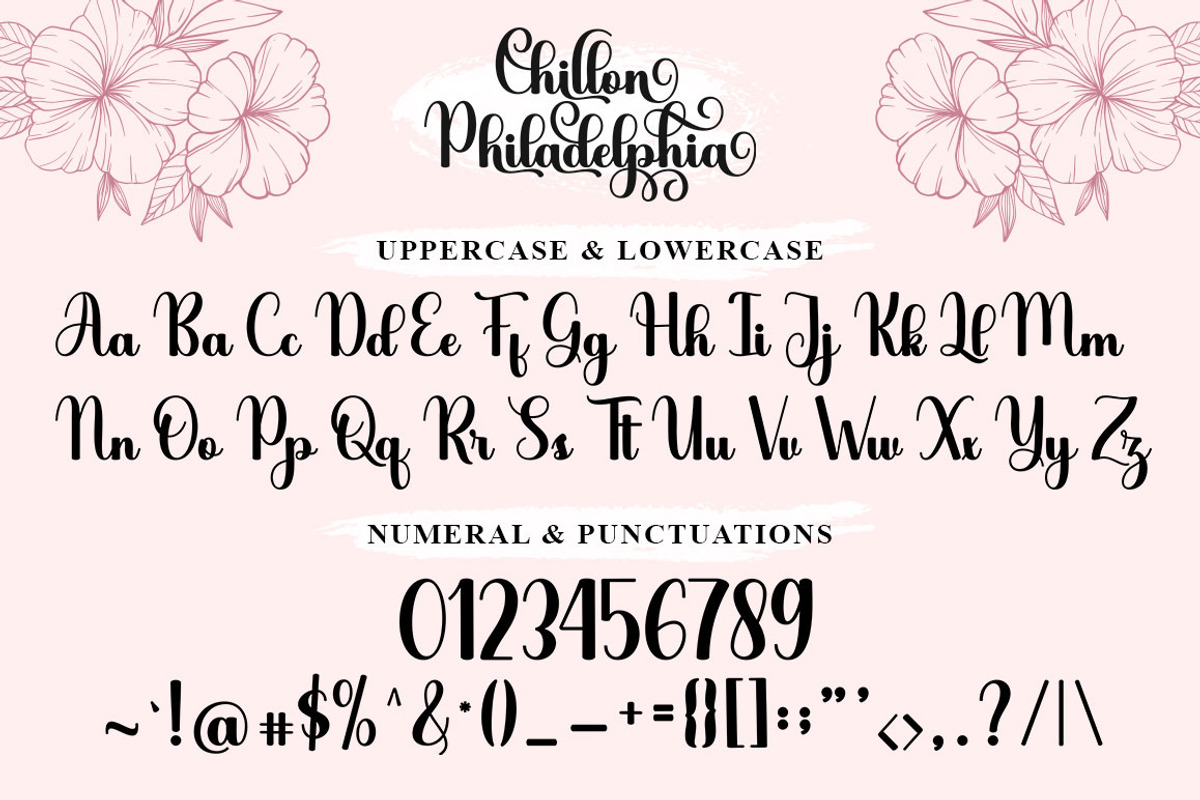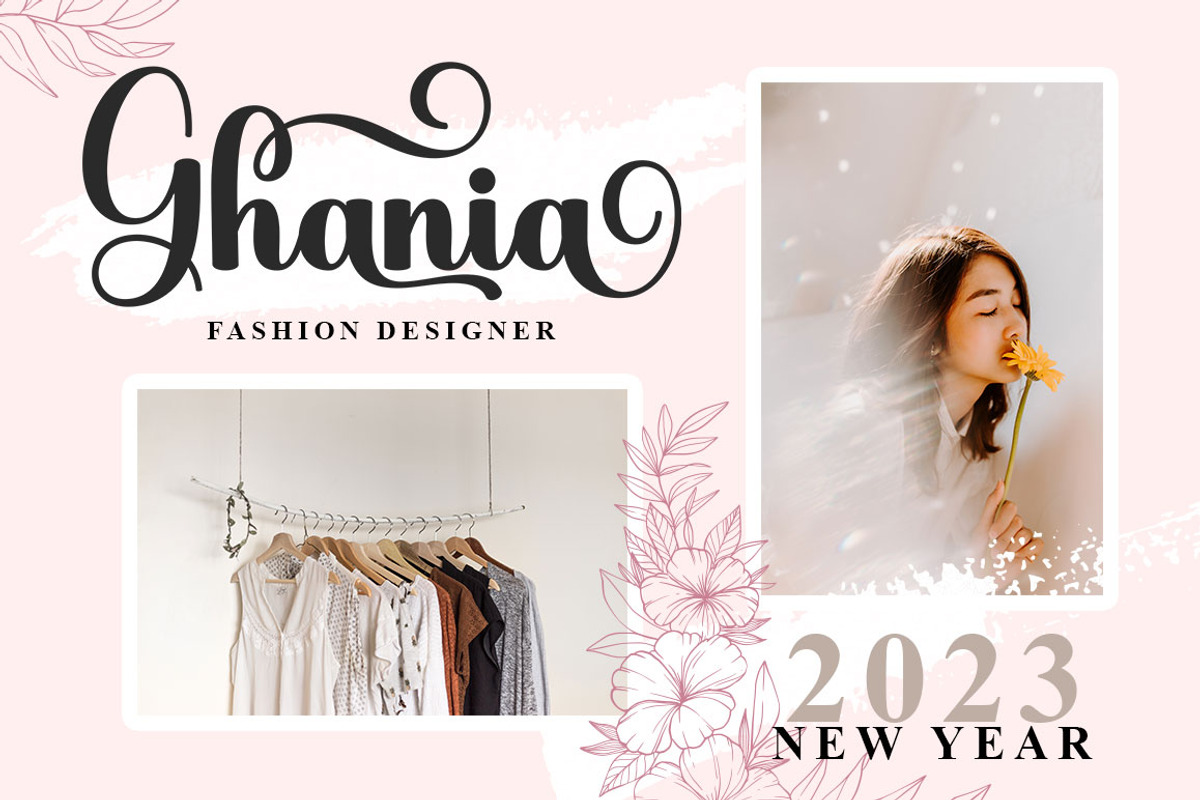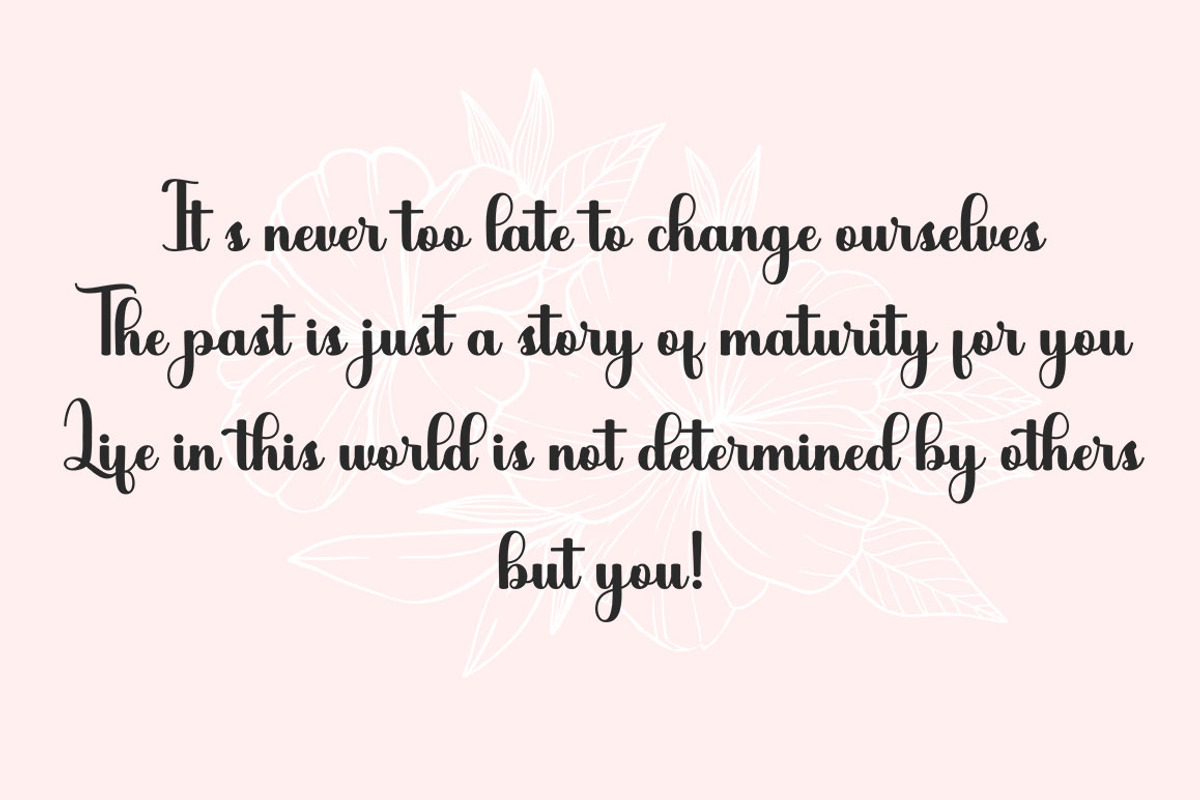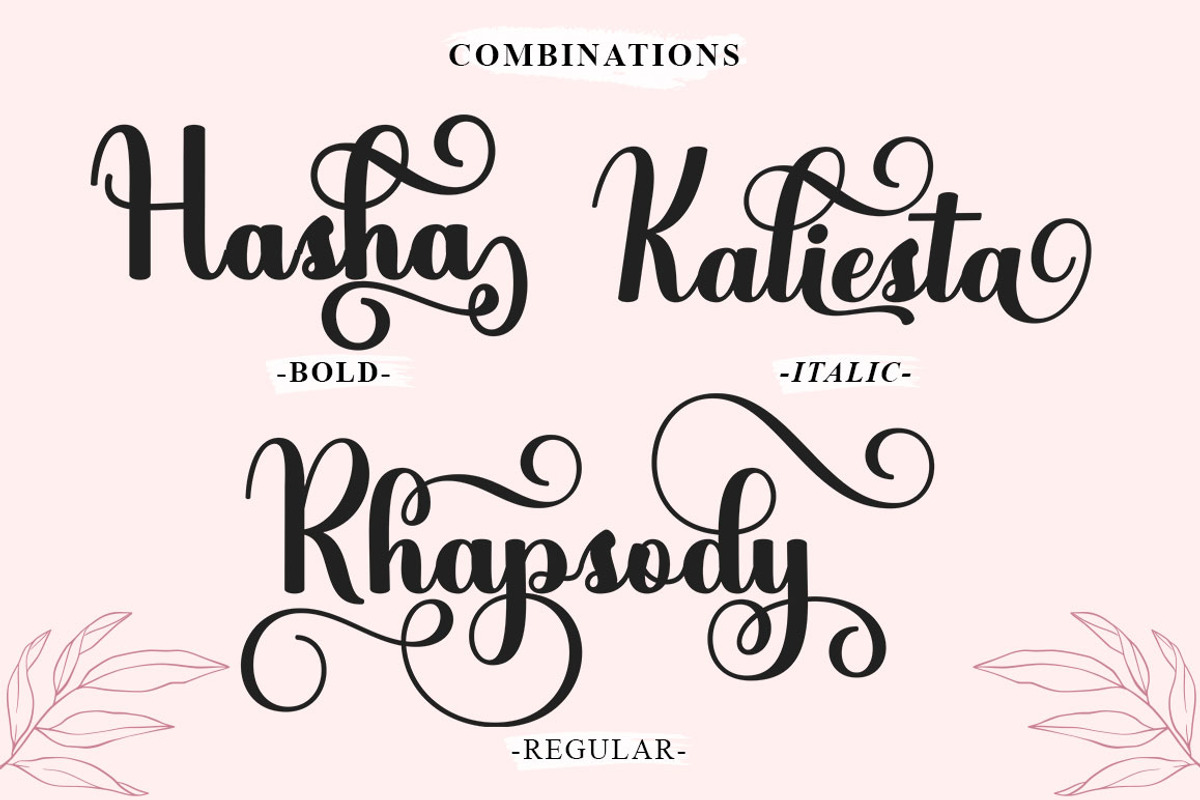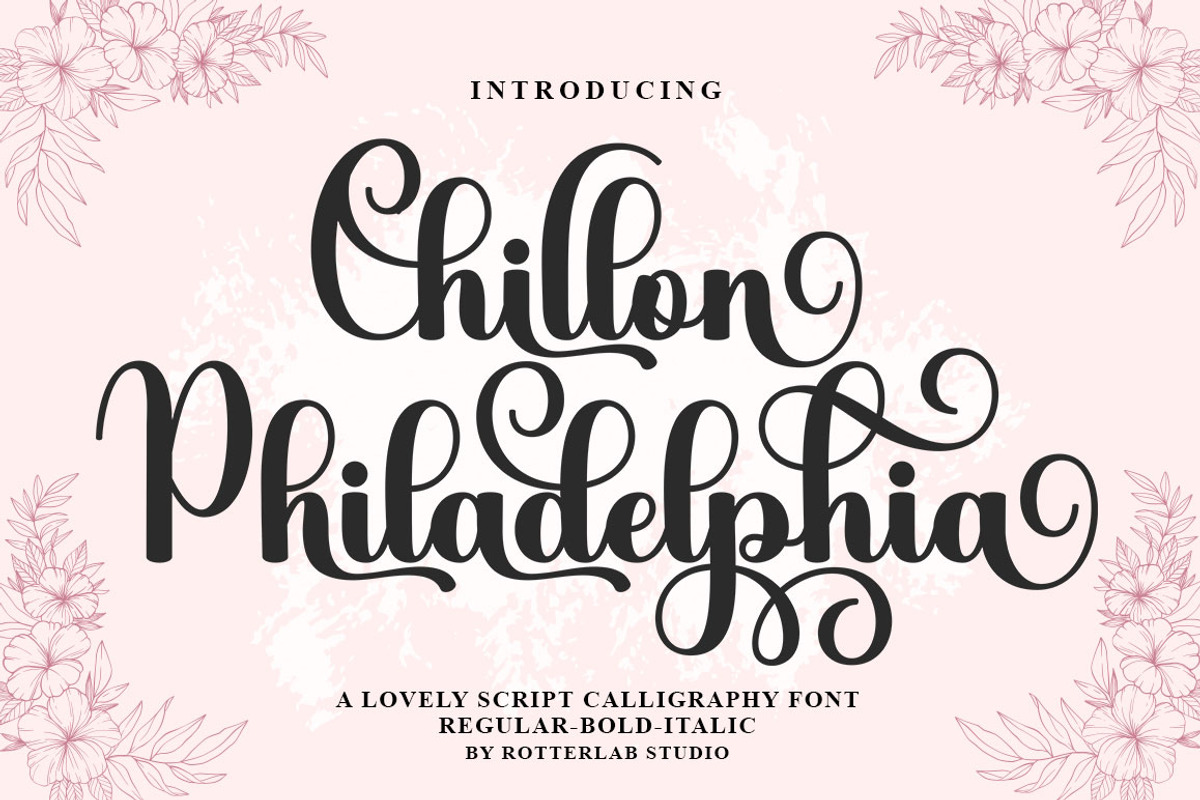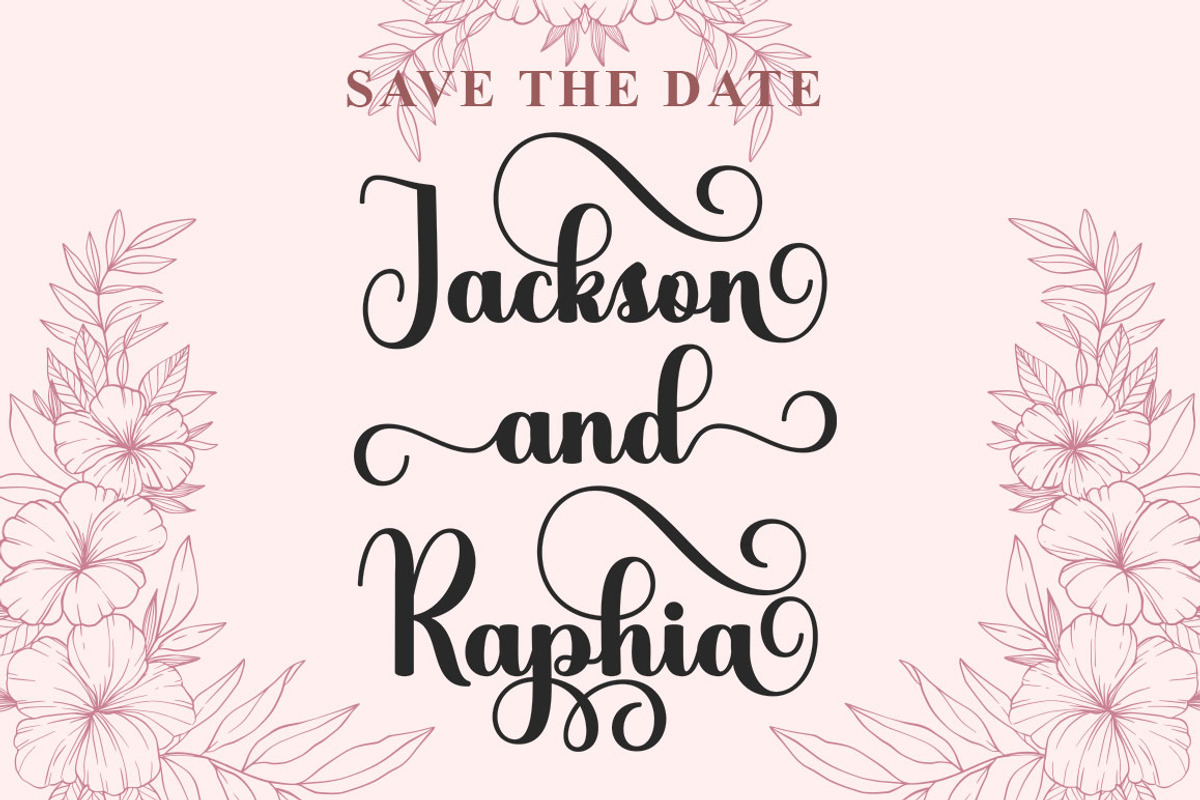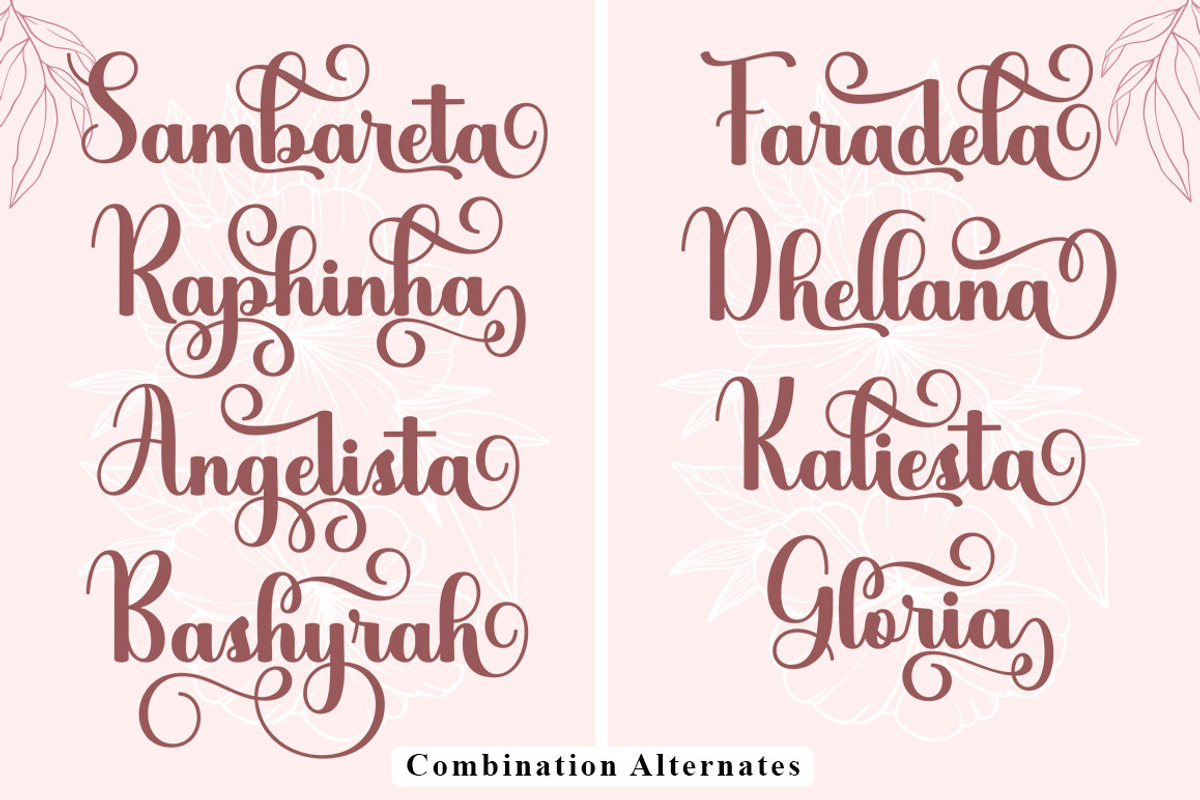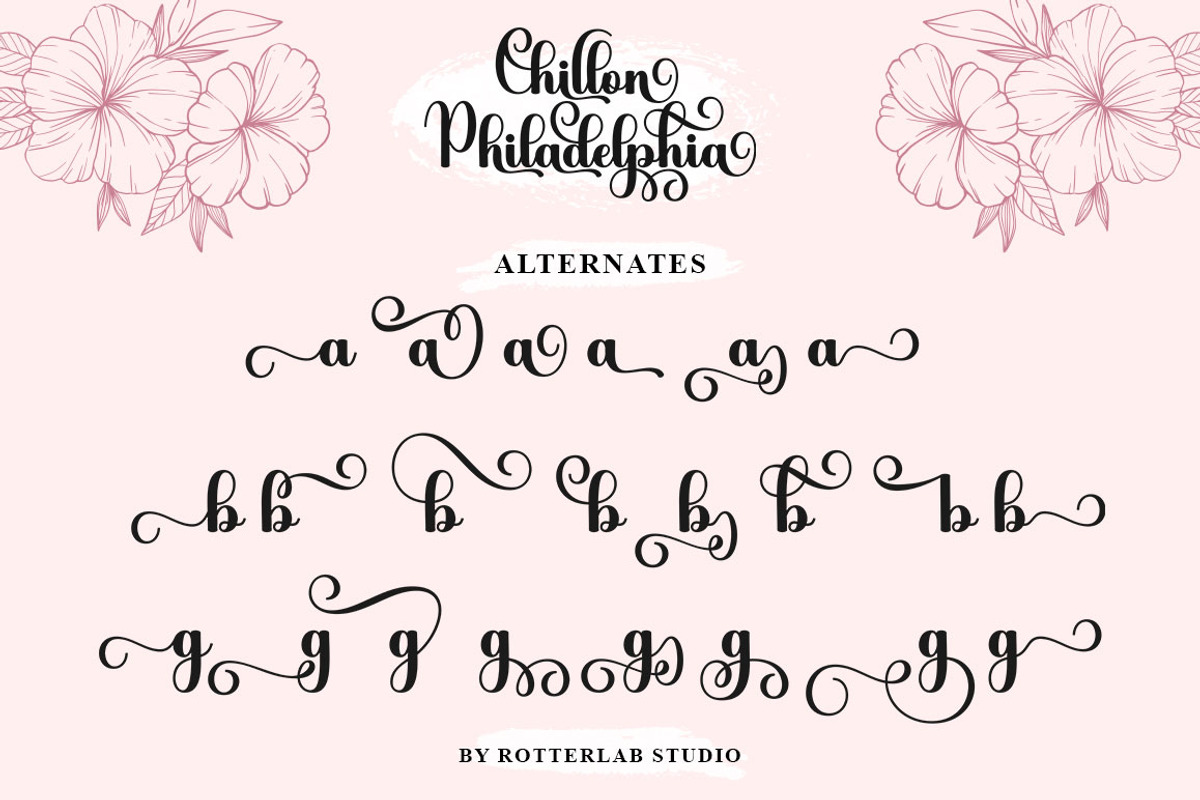
Chillon Philadelphia
Chillon Philadelphia is a modern calligraphy script font that features a classic and elegant touch.
Chillon Philadelphia is attractive because it is beautiful, clean, feminine, sensual, glamorous, simple and very easy to read, thanks to its many luxurious lettering joints. I also offer a decent number of stylistic alternatives for some of the letters. Classic style is very suitable to be applied in various formal forms such as invitations, labels, restaurant menus, logos, fashion, make up, stationery, novels, magazines, books, greeting/wedding cards, packaging, labels or all kinds of advertising purposes. . and much more.
Contains full set:
-Has 3 font models, Regular, Italic, Bold
-Uppercase
-Lowercase
-Alternative
-Punctuation
-Number
-Multilingual support.